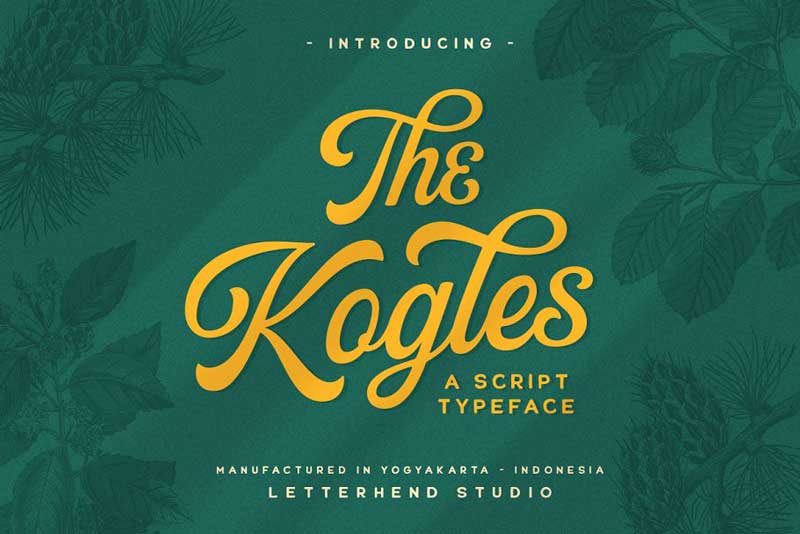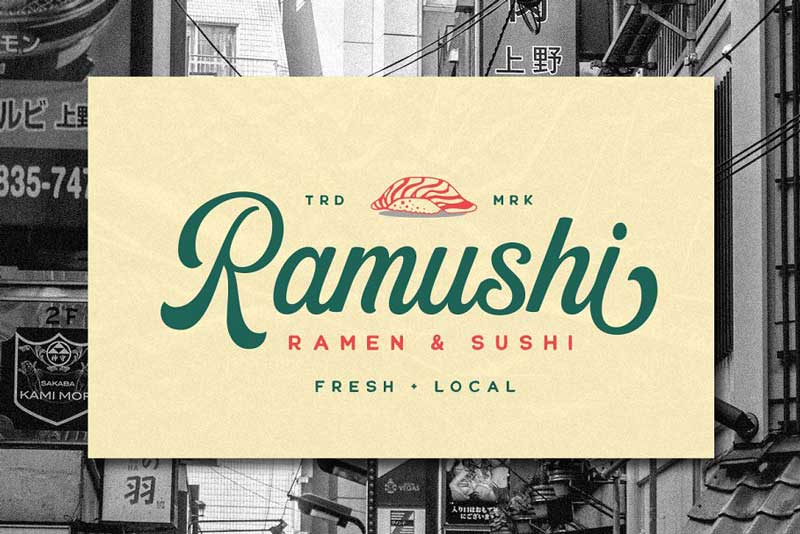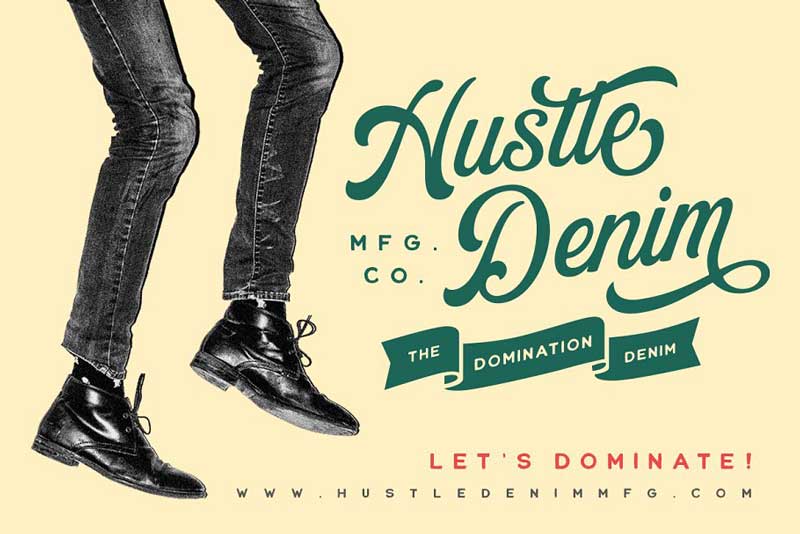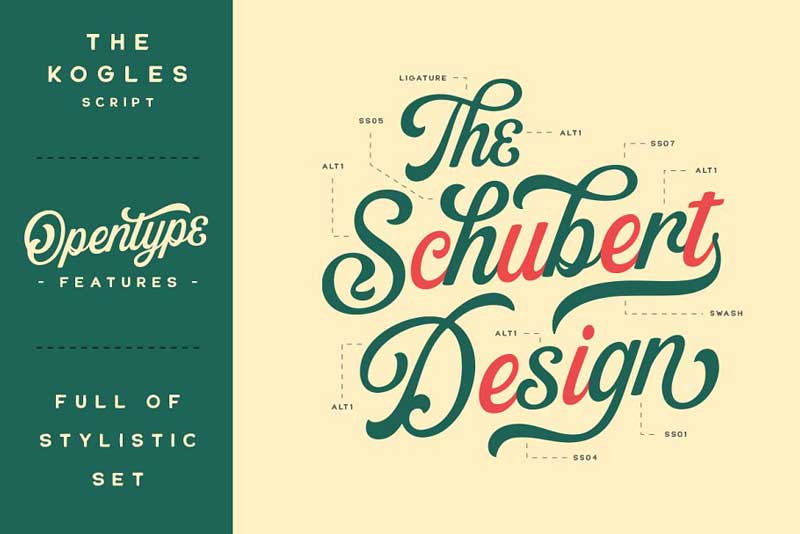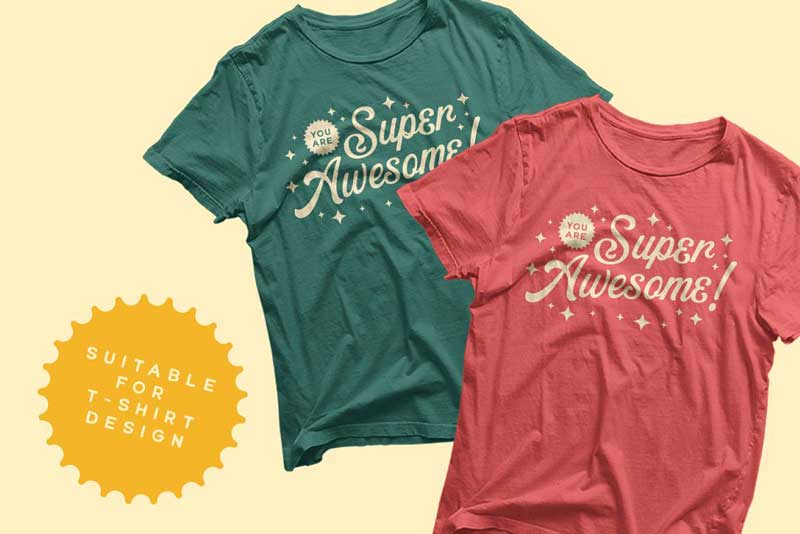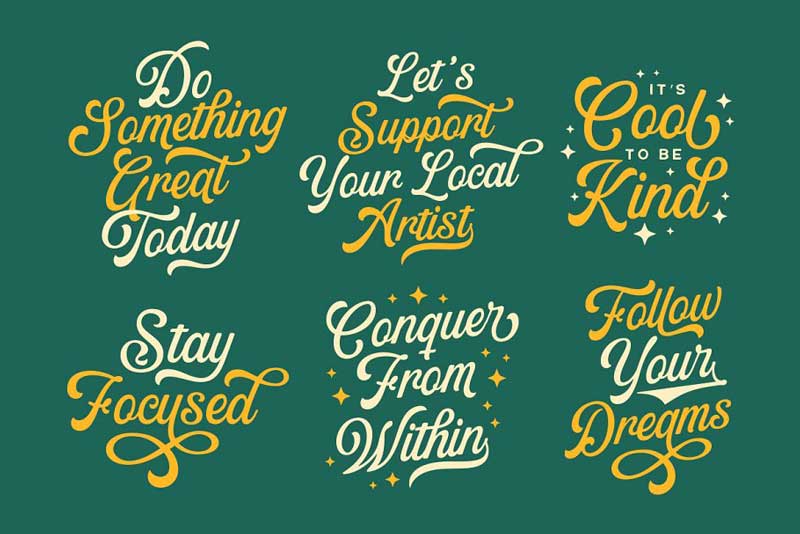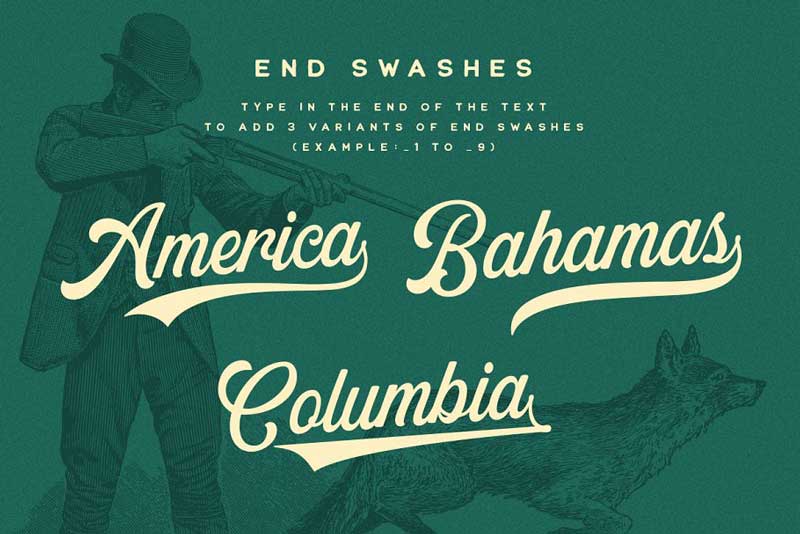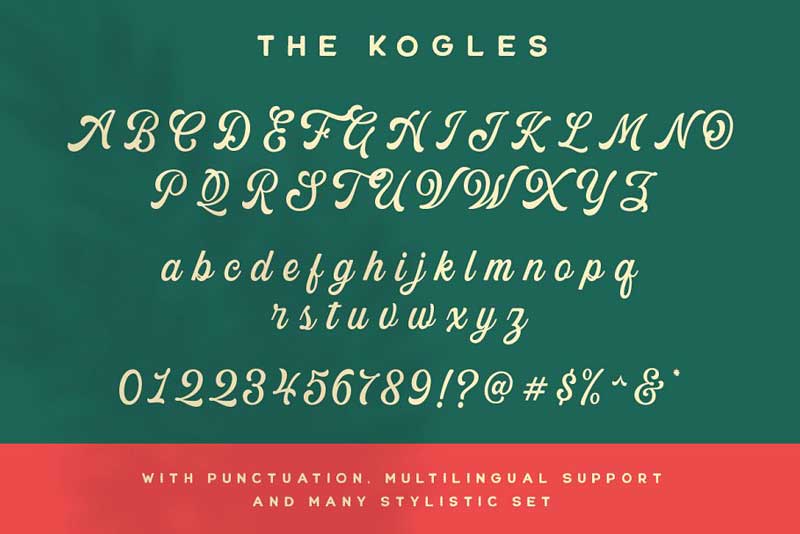
The Kogles Script Typeface 4632758
Please welcome our newest script typeface, The Kogles, a nice script typeface with a retro feel. This font perfectly made to be applied especially in logo, and the other various formal forms such as invitations, labels, logos, magazines, books, greeting/wedding cards, packaging, fashion, makeup, stationery, novels, labels or any type of advertising purpose.
Features :
• uppercase & lowercase
• numbers and punctuation
• multilingual
• ligatures
• alternates
• swashes